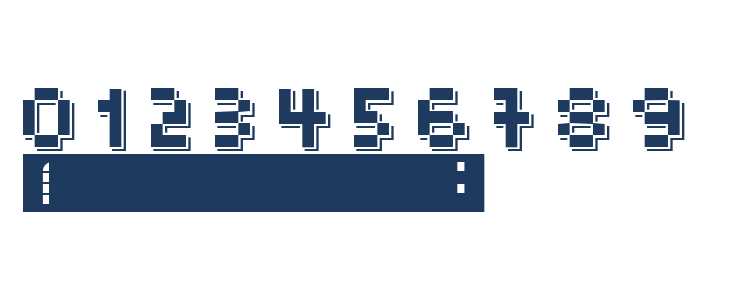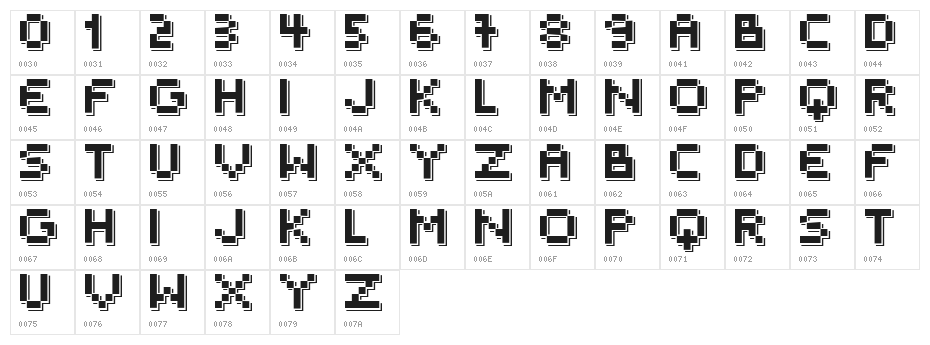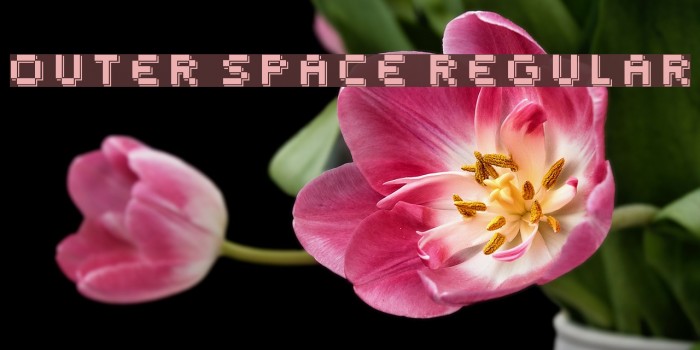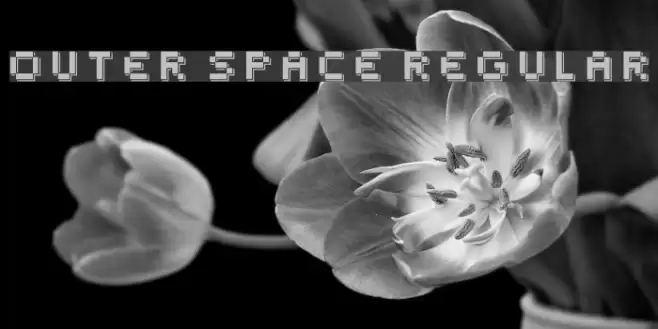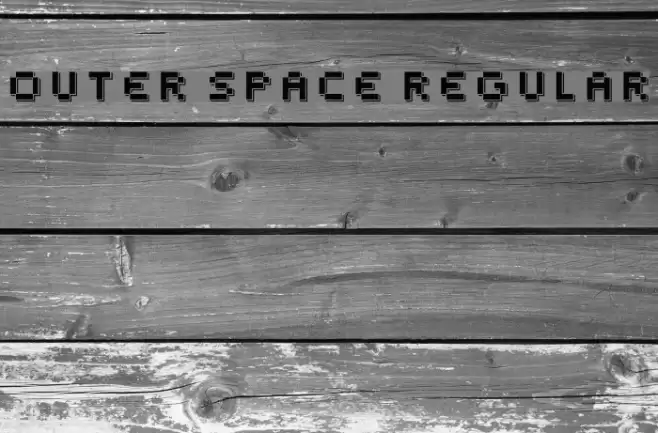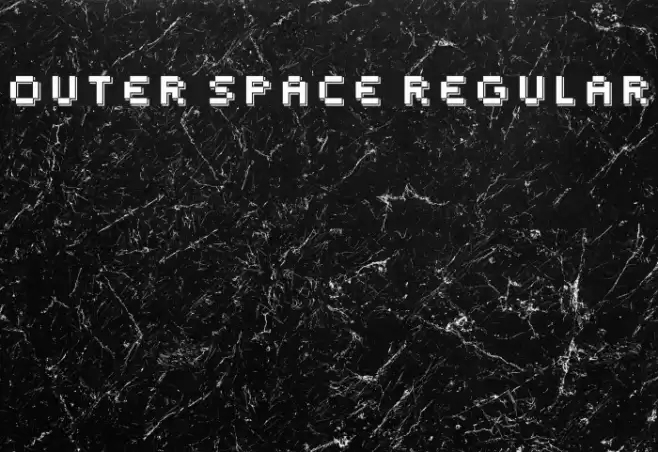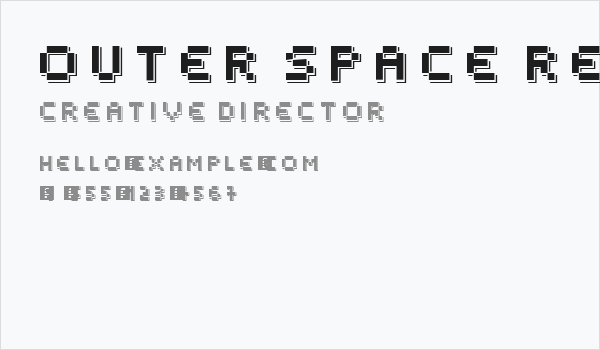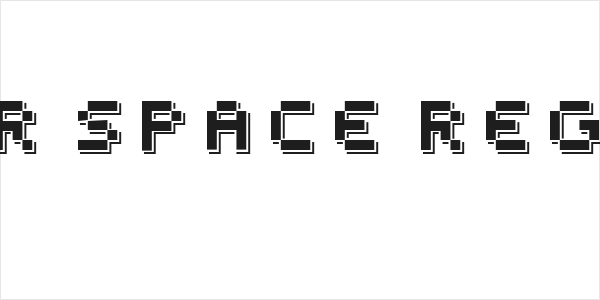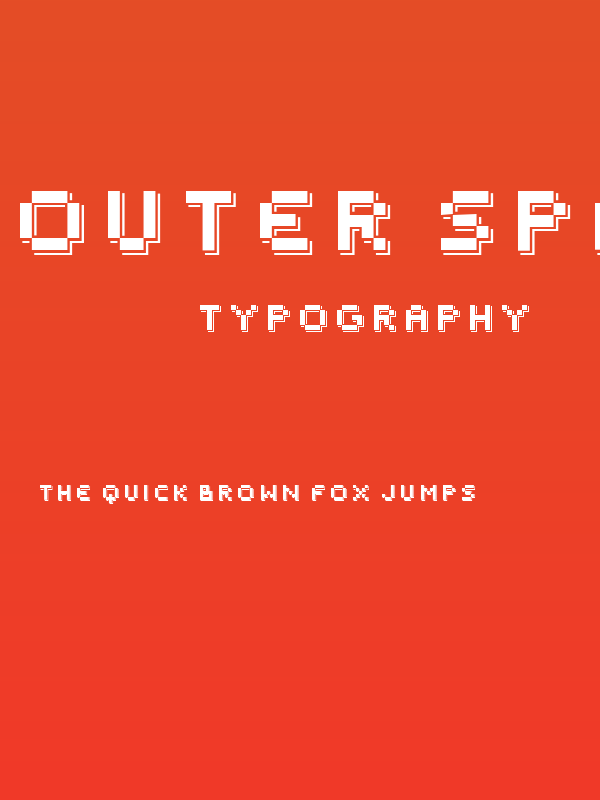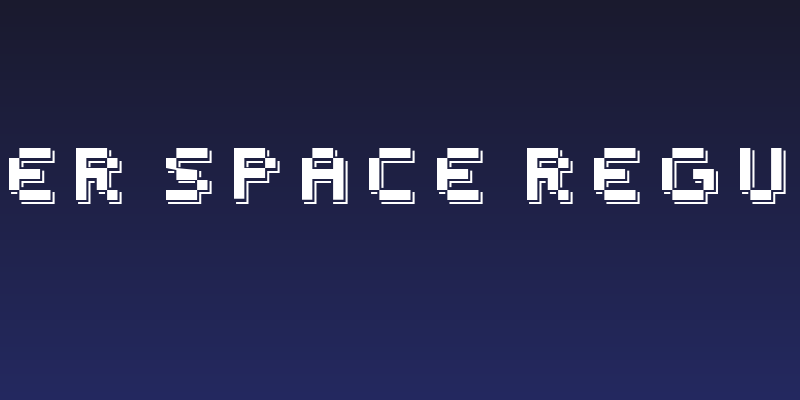
Outer Space Regular Font
Outer Space Regular Description
This font features a futuristic and digital aesthetic, characterized by its blocky and pixelated design. Each character is constructed with a bold, geometric structure, giving it a distinct, tech-inspired look. The uppercase and lowercase letters maintain a consistent style, with sharp angles and a uniform width. The numerals and special characters follow the same design principles, ensuring a cohesive appearance across all elements. The font's unique style makes it ideal for projects that require a modern, digital feel, such as video game graphics, tech branding, or sci-fi themed designs.
| Proposed Projects | Ideal for video game graphics, tech branding, sci-fi themed designs, and digital art projects. |